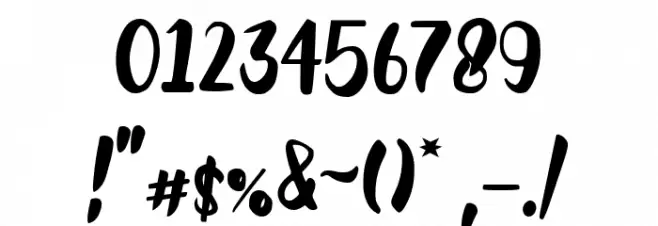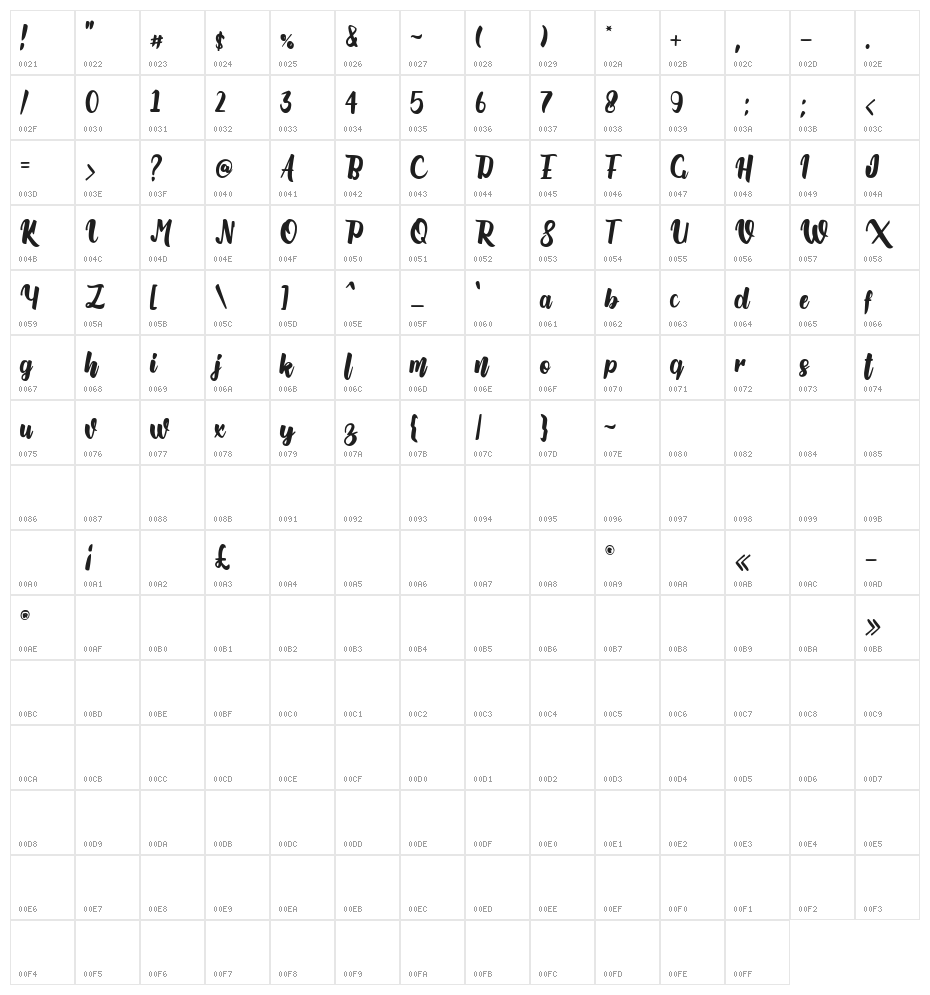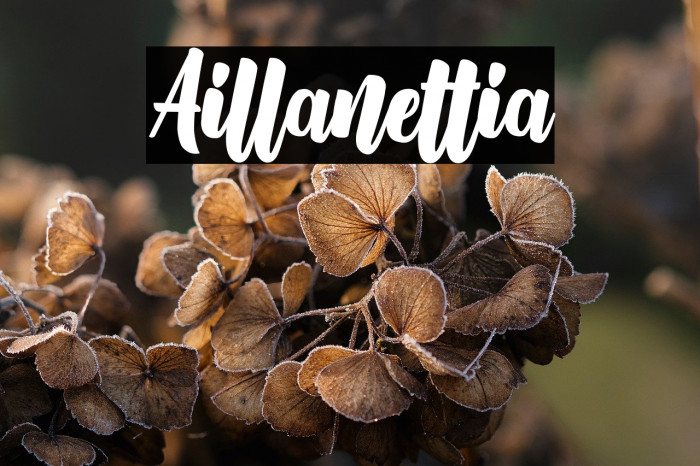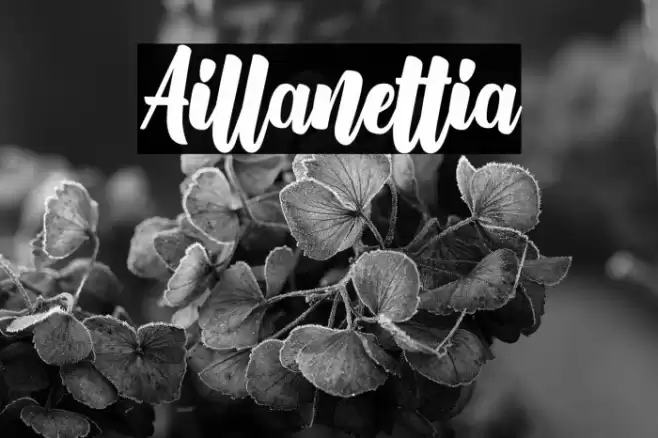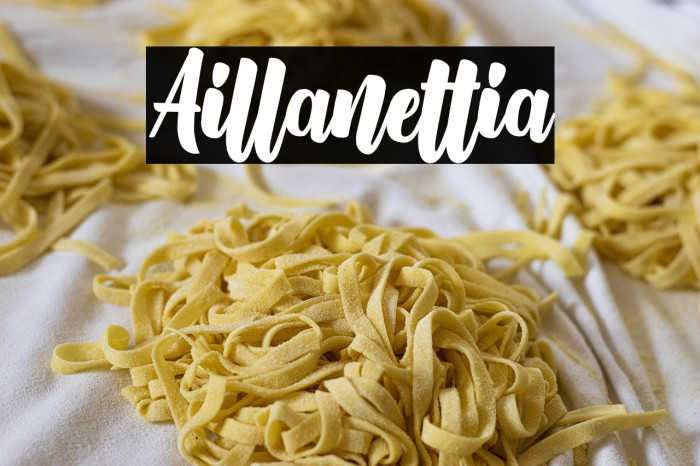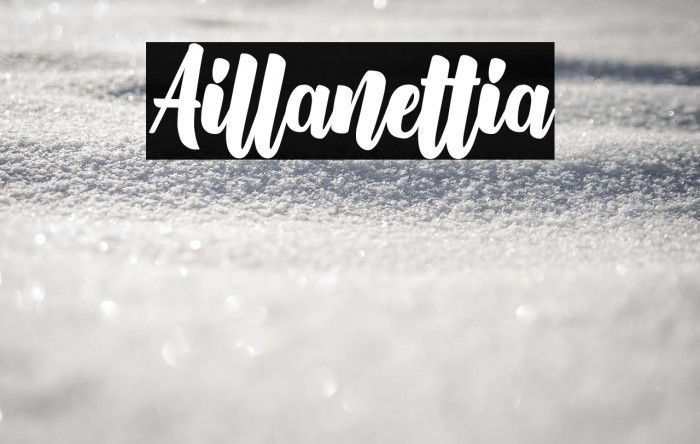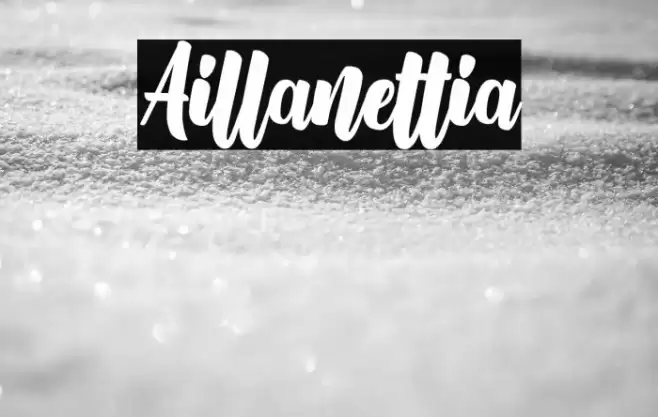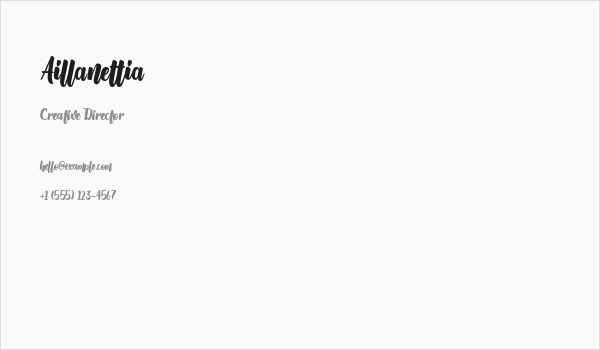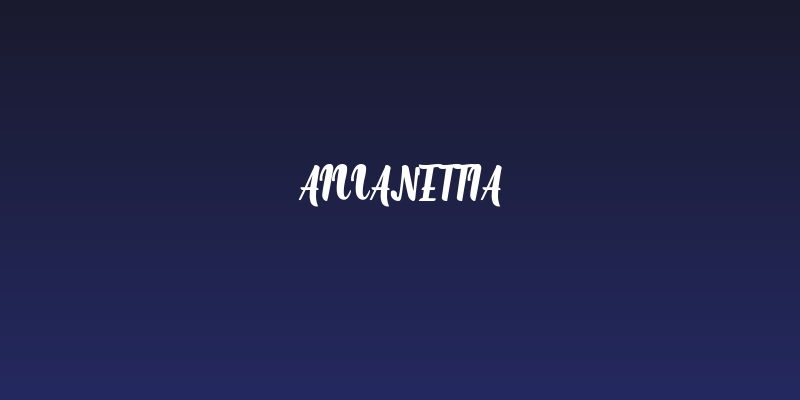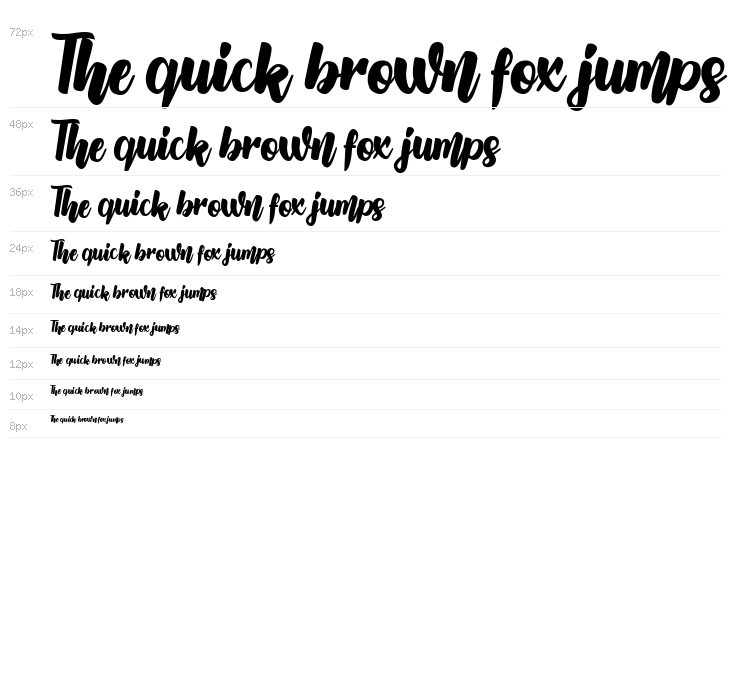
Aillanettia Font
Aillanettia Description
This font features a bold and expressive script style with a modern flair. The characters are designed with a flowing, cursive appearance, giving it a dynamic and lively feel. The uppercase letters are slightly more formal, while the lowercase letters maintain a casual, handwritten look. The numbers and special characters are consistent with the overall style, ensuring a cohesive appearance across all text. The strokes are thick and consistent, providing a strong visual impact. This font is ideal for projects that require a personal touch or a sense of elegance and creativity.